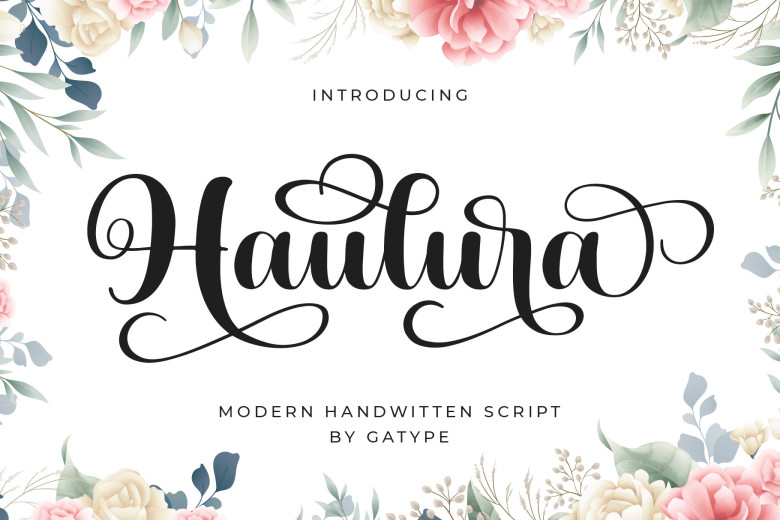
Haulura Font
Haulura can be described as an elegant script calligraphy typeface, easily read with beautiful strokes that makes this font easy to read and beautiful to behold. It can be used for various applications ranging from logos and packaging wedding invitations to branding headlines signs labels signatures book covers posters quotes etc.
Haulura Calligraphy Script Font